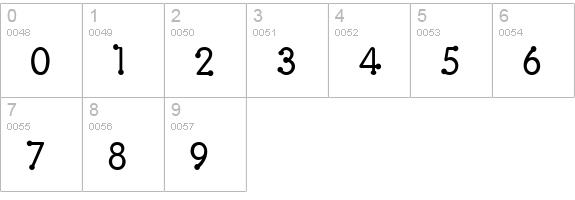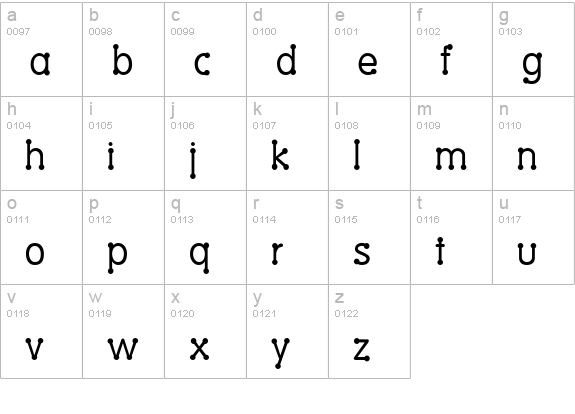
Vingy Normal Font Details
Vingy Normal is the standard, neutral variant in the Vingy typeface family \xE2\x80\x94 well suited to general body text, paragraphs, and standard typographic work.
Vingy Normal font is a versatile and elegant typeface that exudes sophistication and professionalism. Its clean and balanced design makes it perfect for a wide range of applications, from corporate branding to editorial design. With its classic letterforms and subtle, yet distinctive details, Vingy Normal font adds a touch of refinement to any project. The carefully crafted curves and graceful strokes create a harmonious visual experience, ensuring legibility and readability even in small sizes. One of the most remarkable aspects of Vingy Normal font is that it is available for free. Yes, that's right! This high-quality font can be freely downloaded at FontsMarket.com. Whether you are a designer on a budget or simply looking for a beautiful typeface that won't cost a dime, Vingy Normal font is the perfect choice. Being freely available doesn't mean any compromise on quality. Vingy Normal font is professionally designed and meticulously crafted to meet the highest standards. It is a testament to the dedication of its creators, who believe that everyone should have access to top-notch typography, regardless of their budget. So, why wait? Head over to FontsMarket.com and download Vingy Normal font today. Enhance your designs with this stunning typeface and make a lasting impression. Whether you're working on a logo, website, or any other design project, Vingy Normal font will elevate your work to new heights. Don't miss out on this incredible opportunity to get a premium font for free!